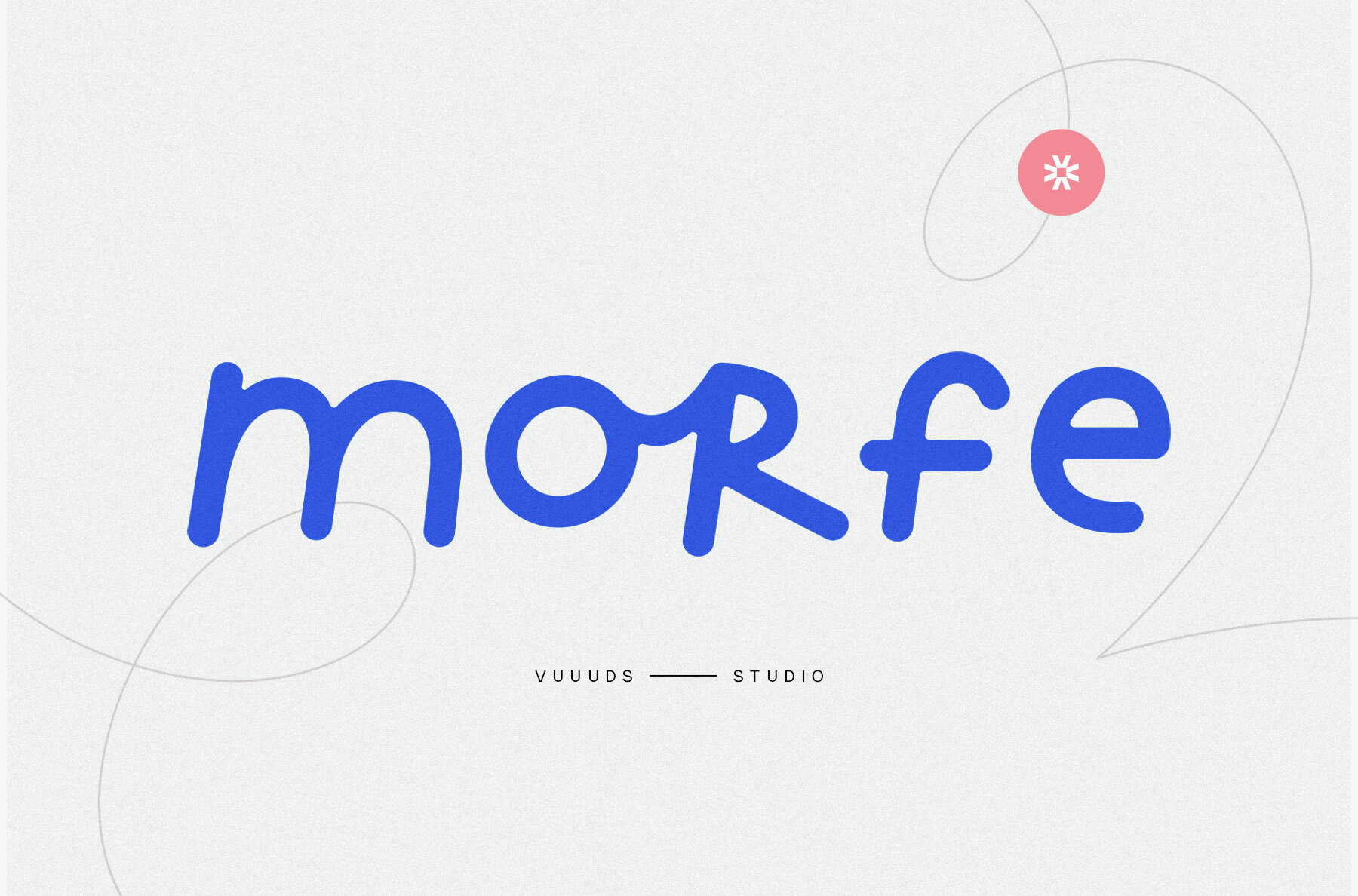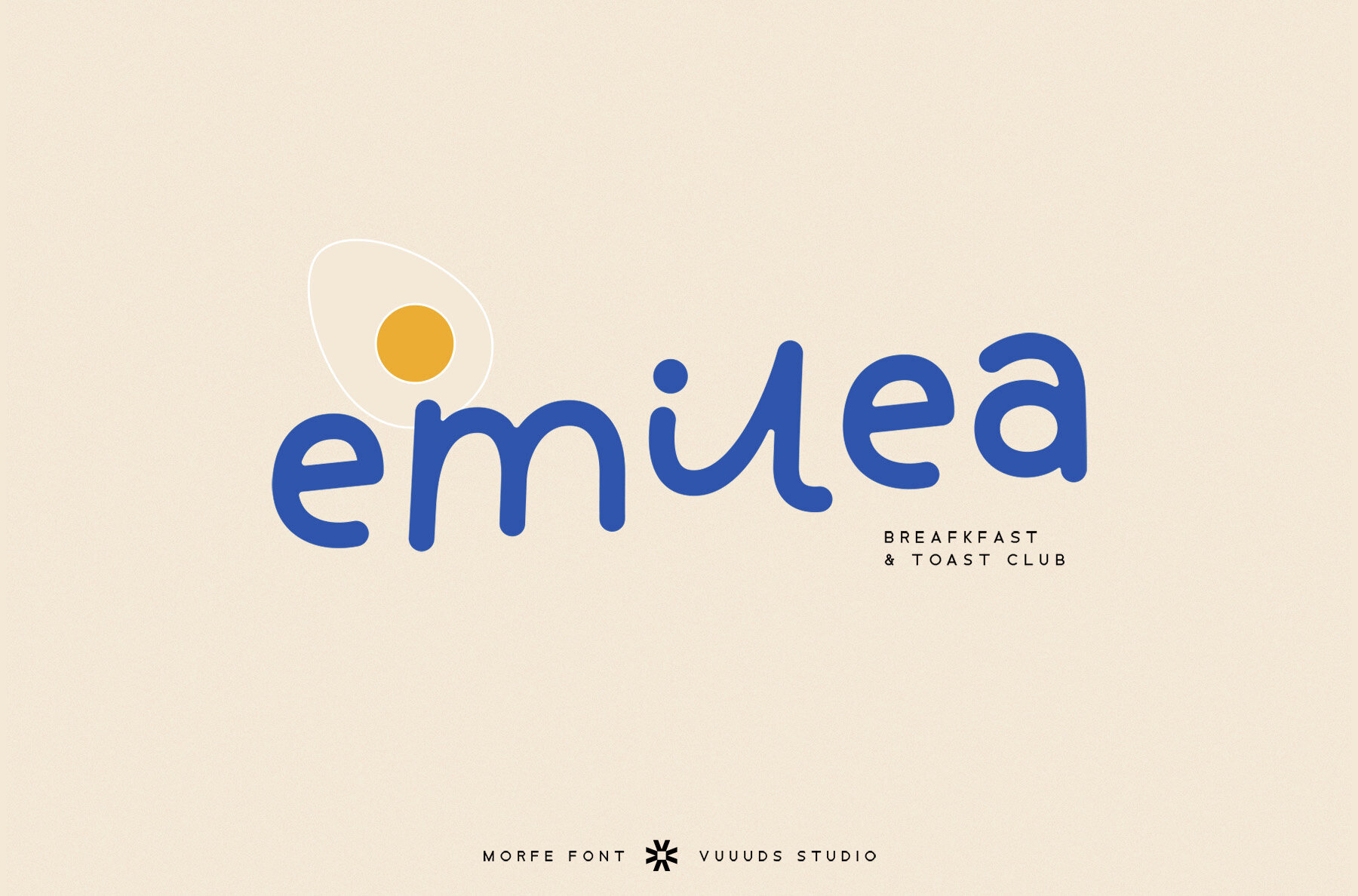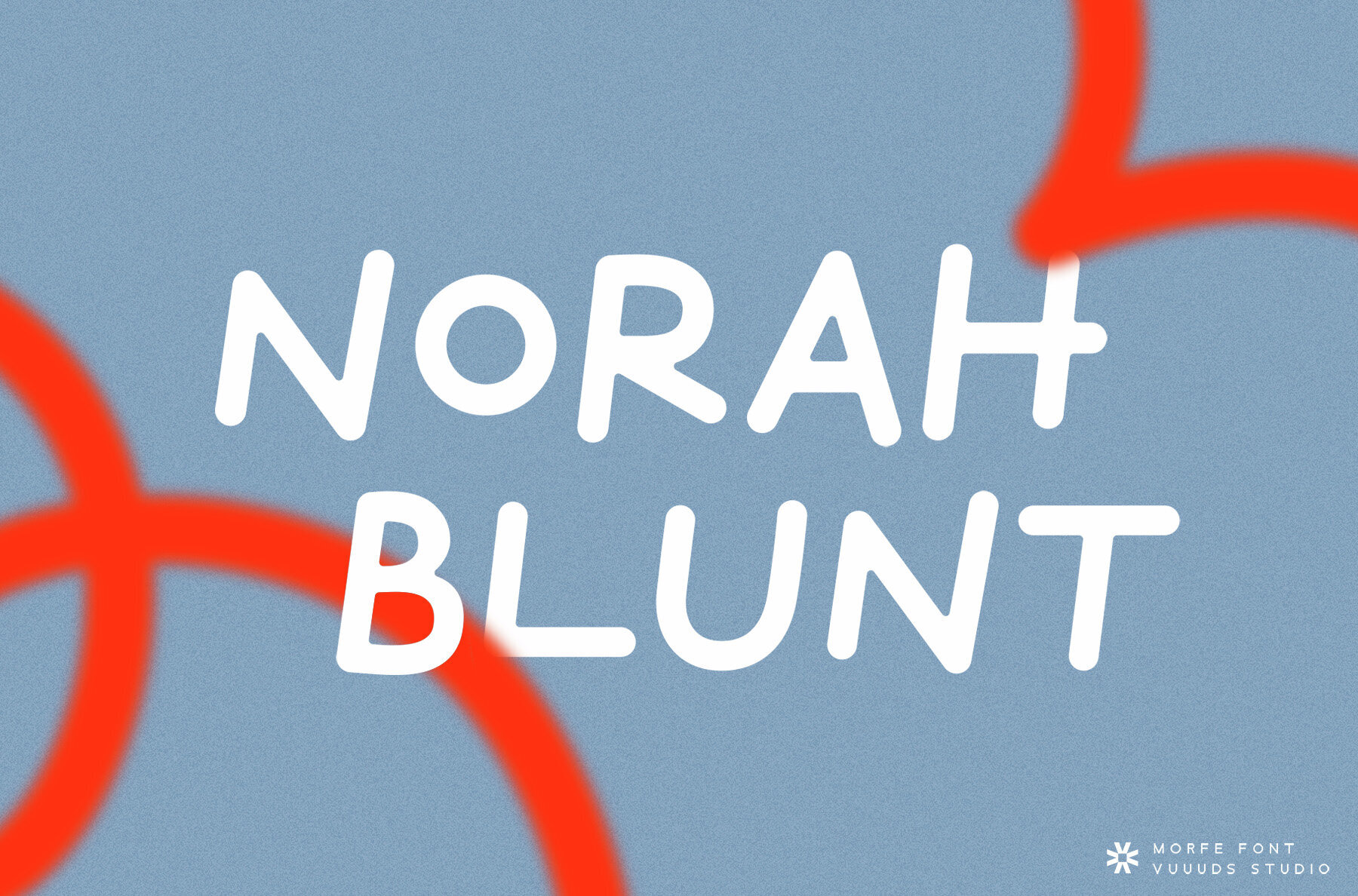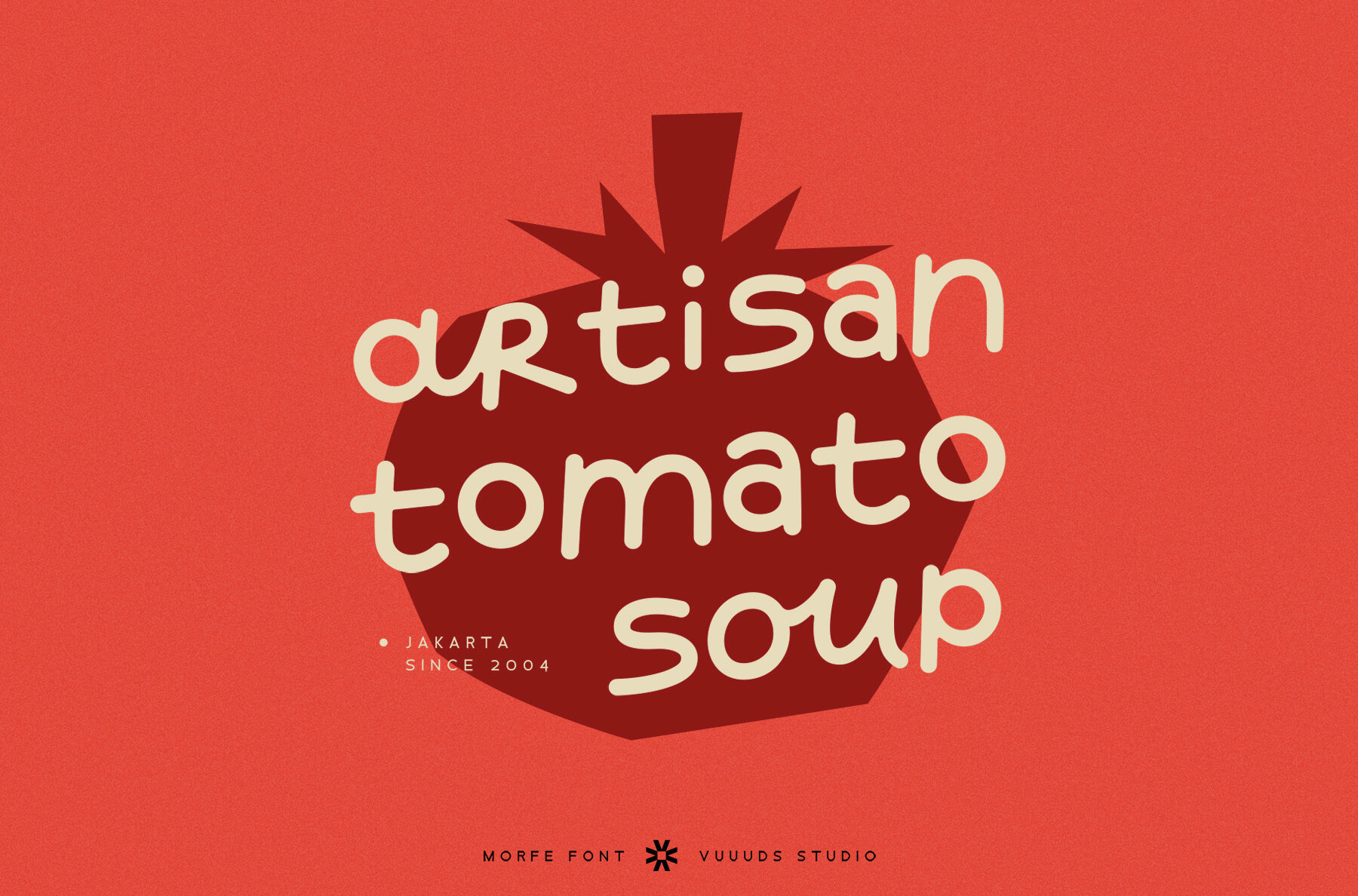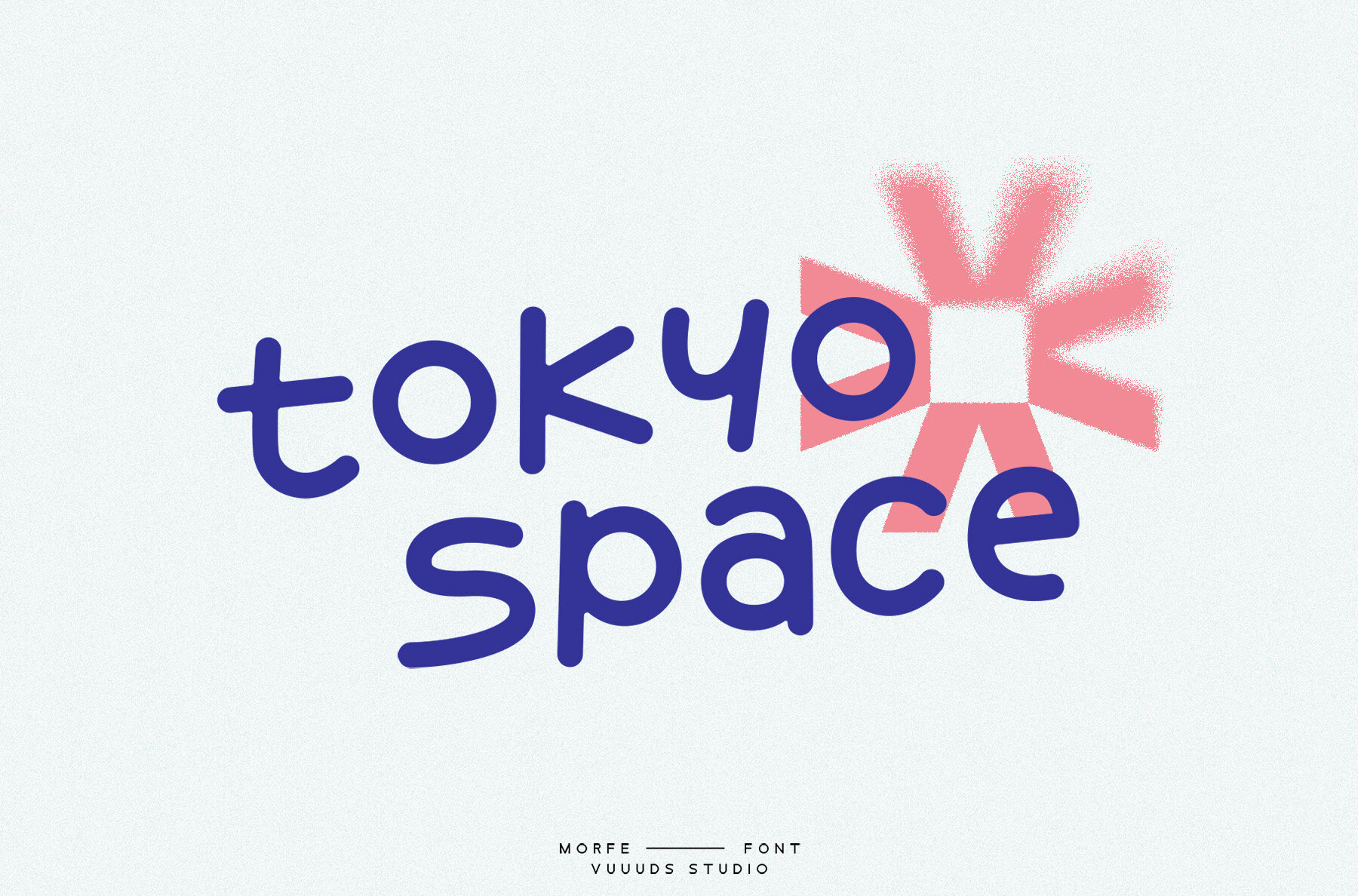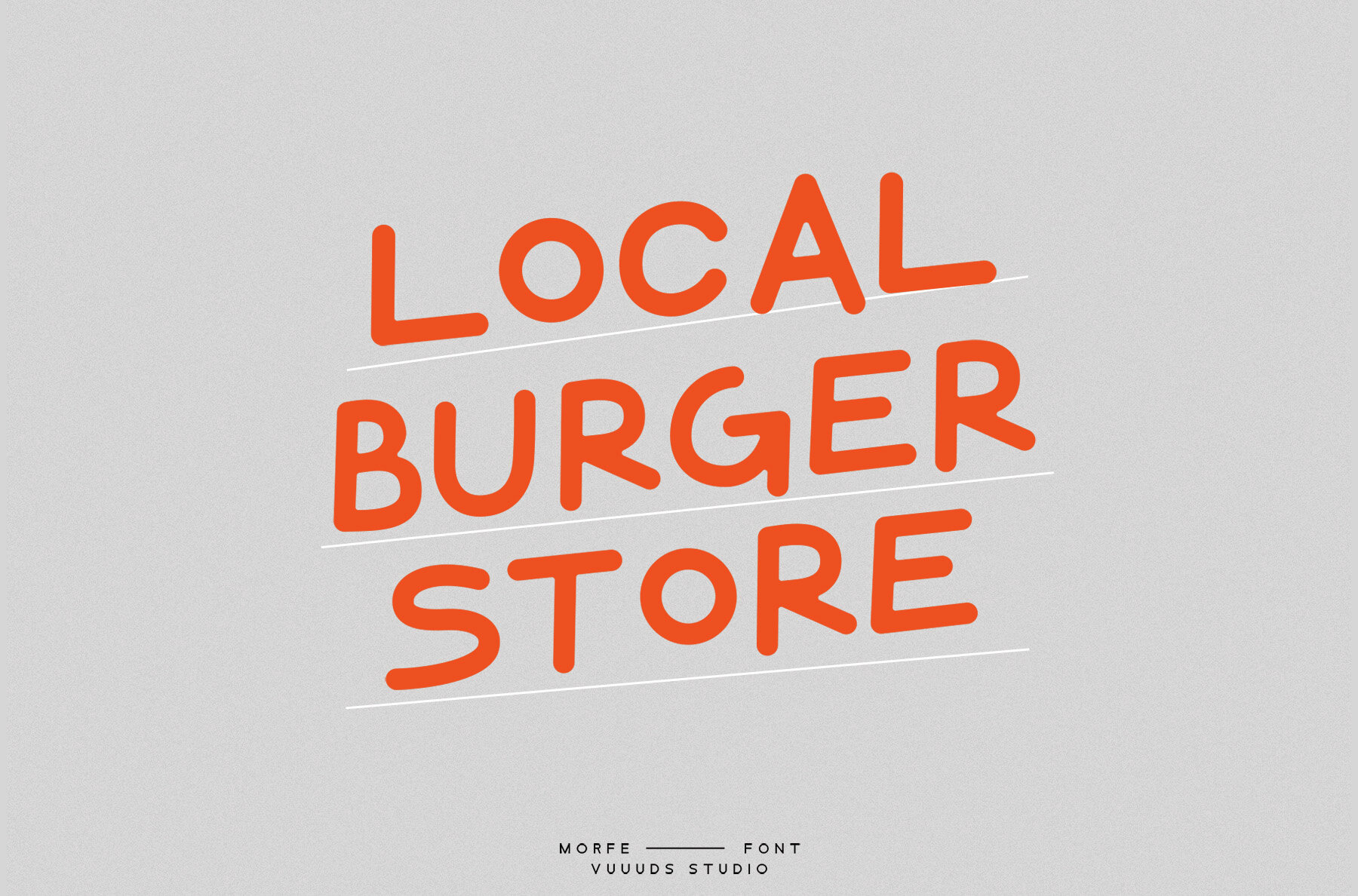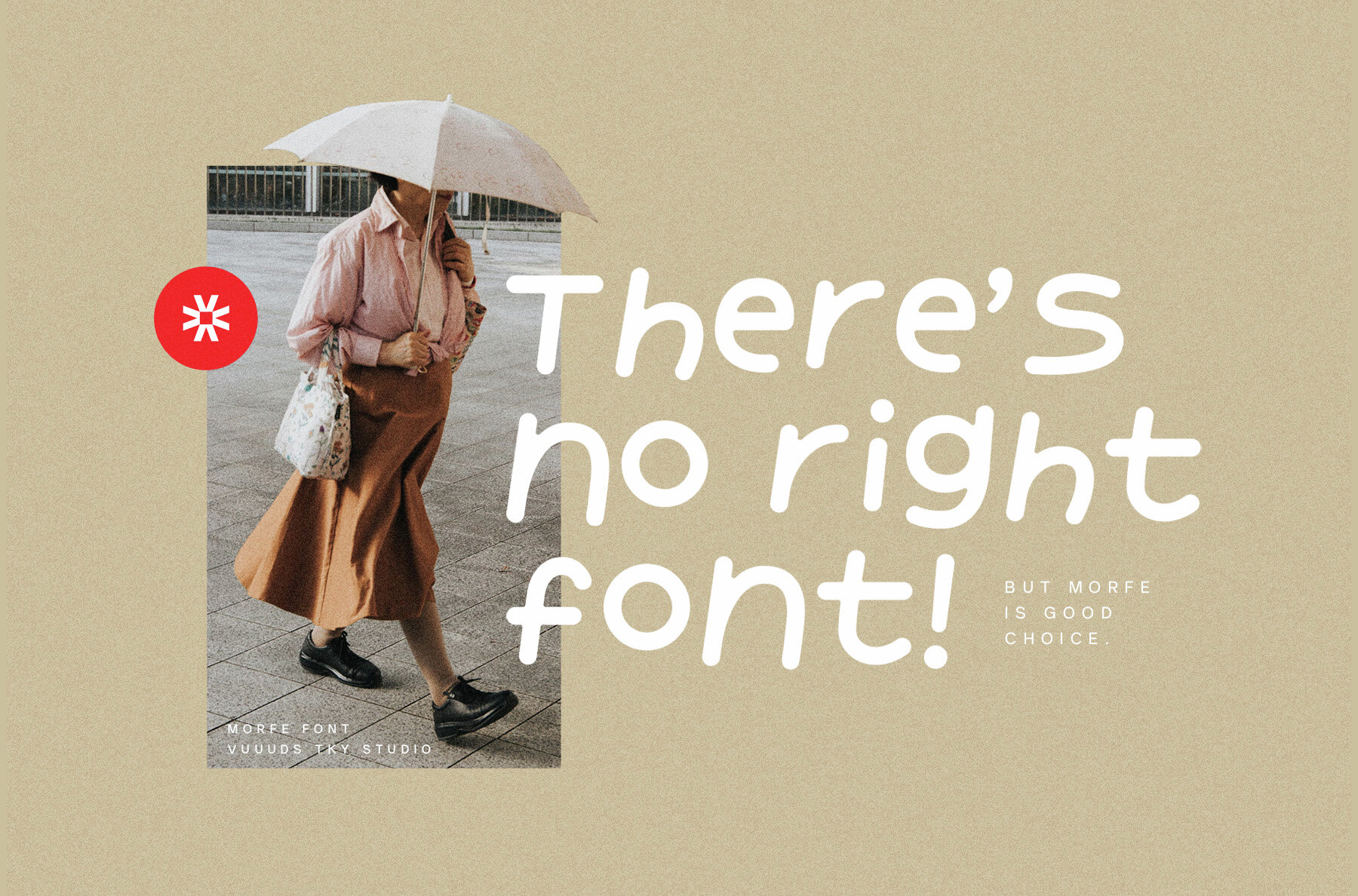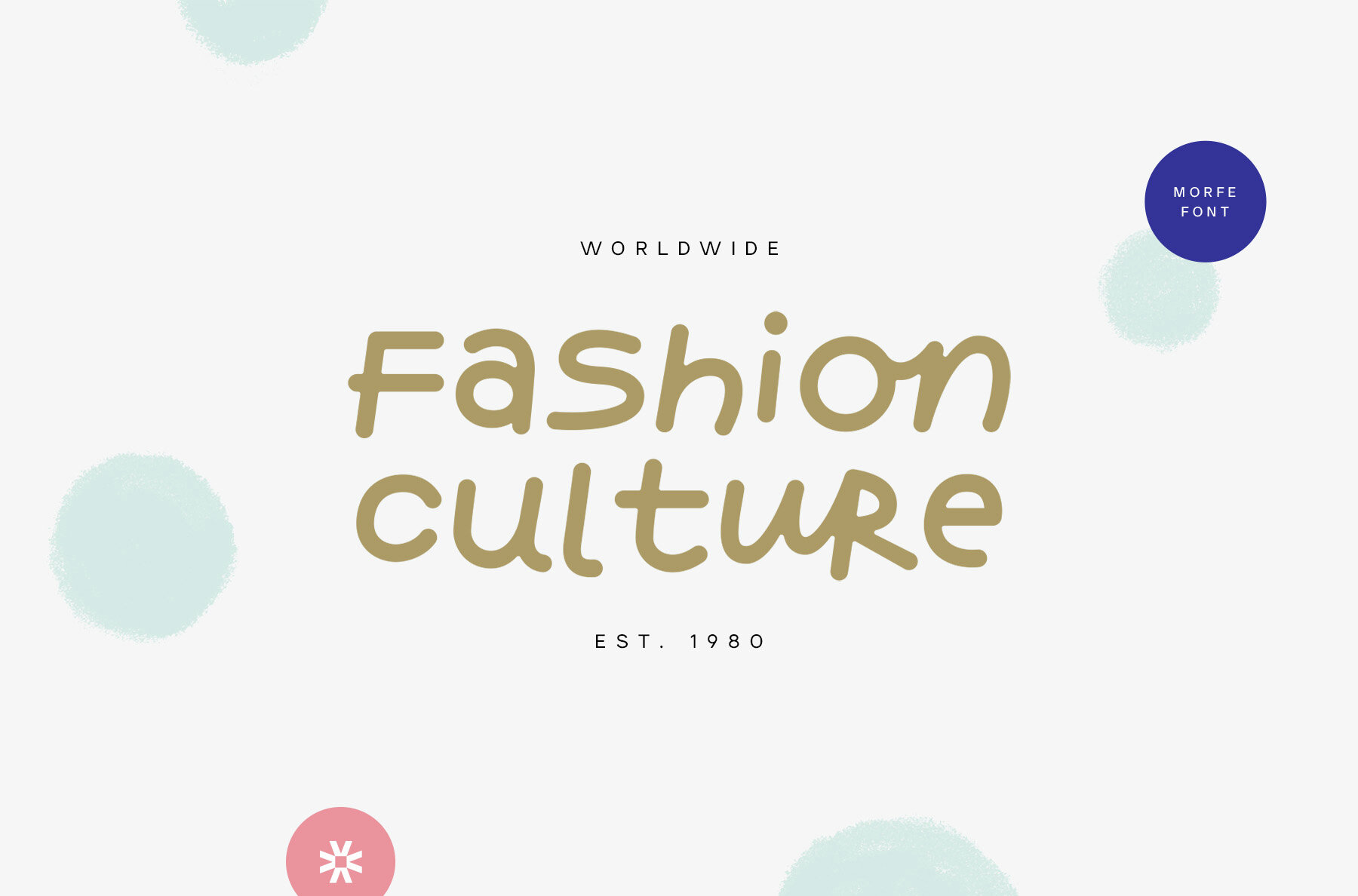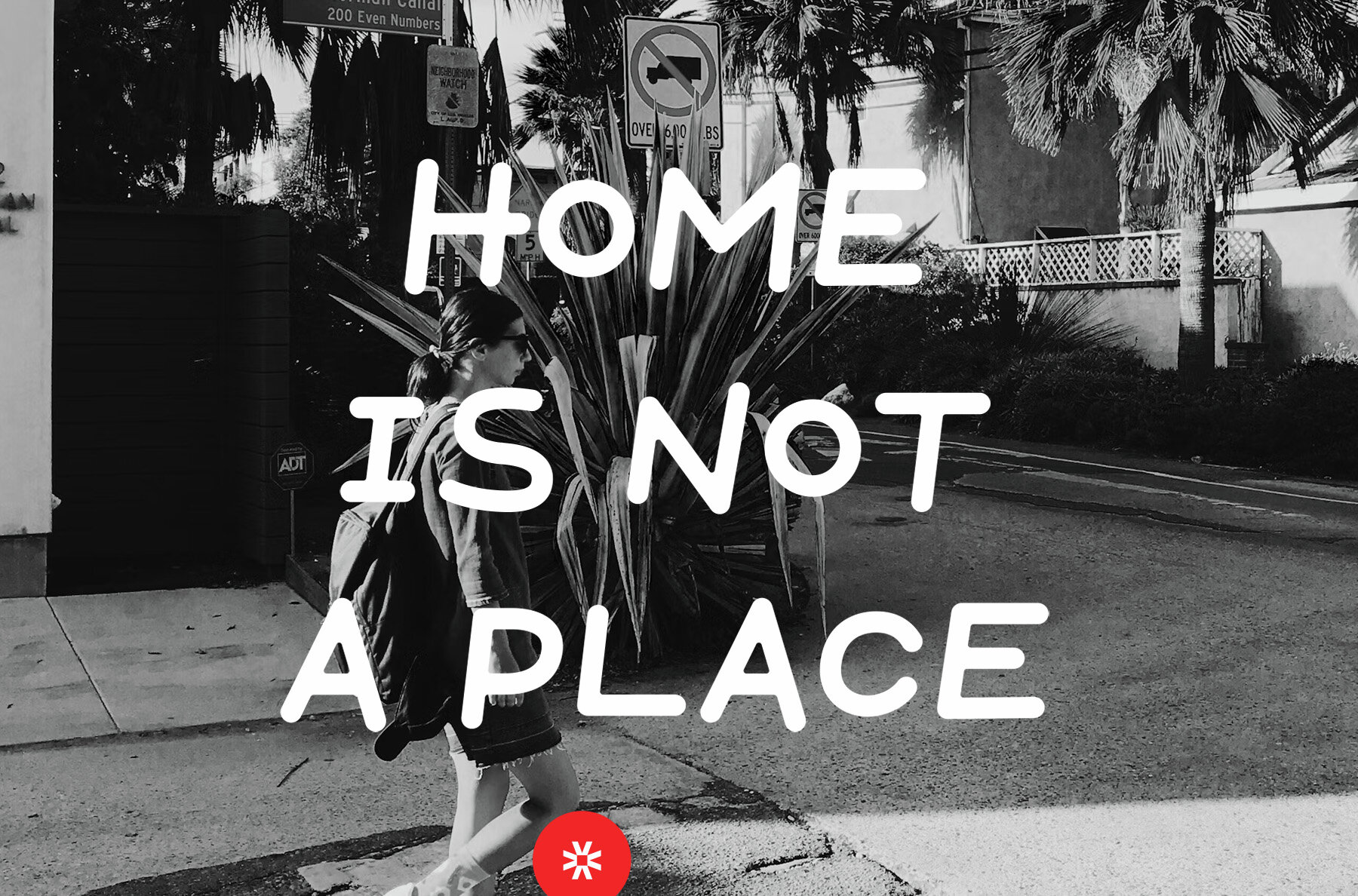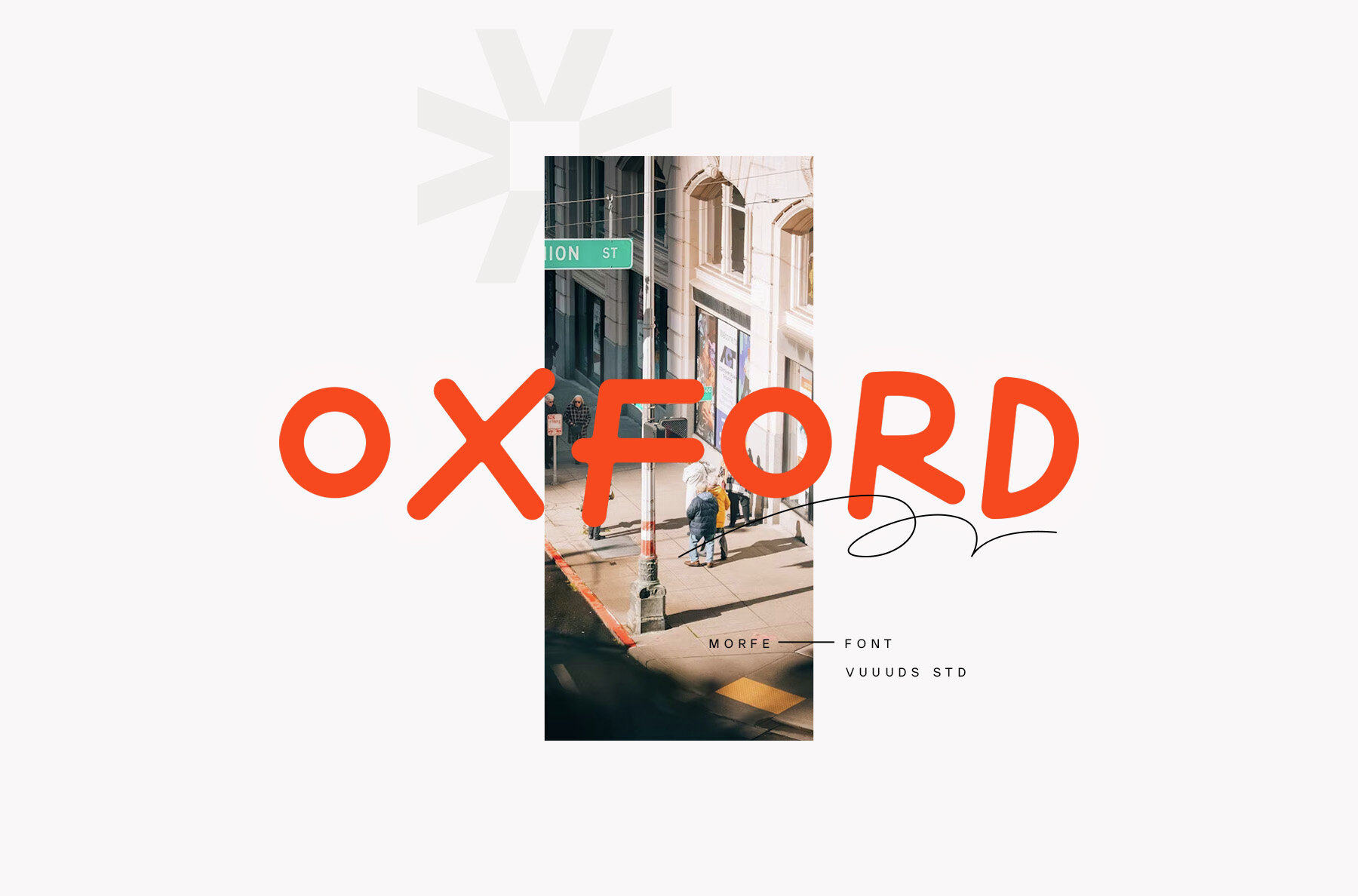
Morfe Font
Morfe
Dive into the world of typography with Morfe, a casual, modern sans serif font where each letter has been meticulously crafted to stand out. Morfe's design reflects a modern aesthetic, making it an ideal choice for versatile design applications, from print to digital media. Alternate Glyphs – Enhance your designs with beautiful alternate glyphs accessible via Font Book for Mac users and Windows Character Map for Windows users. A tutorial link is included within the download file. Morfe provides extensive support for multiple foreign languages, making it a versatile choice for global communication needs. Morfe's thoughtful design and multilingual support ensure it stands as an indispensable tool for innovative design exploration.Morfe: The Uniquely Crafted Modern Sans Serif